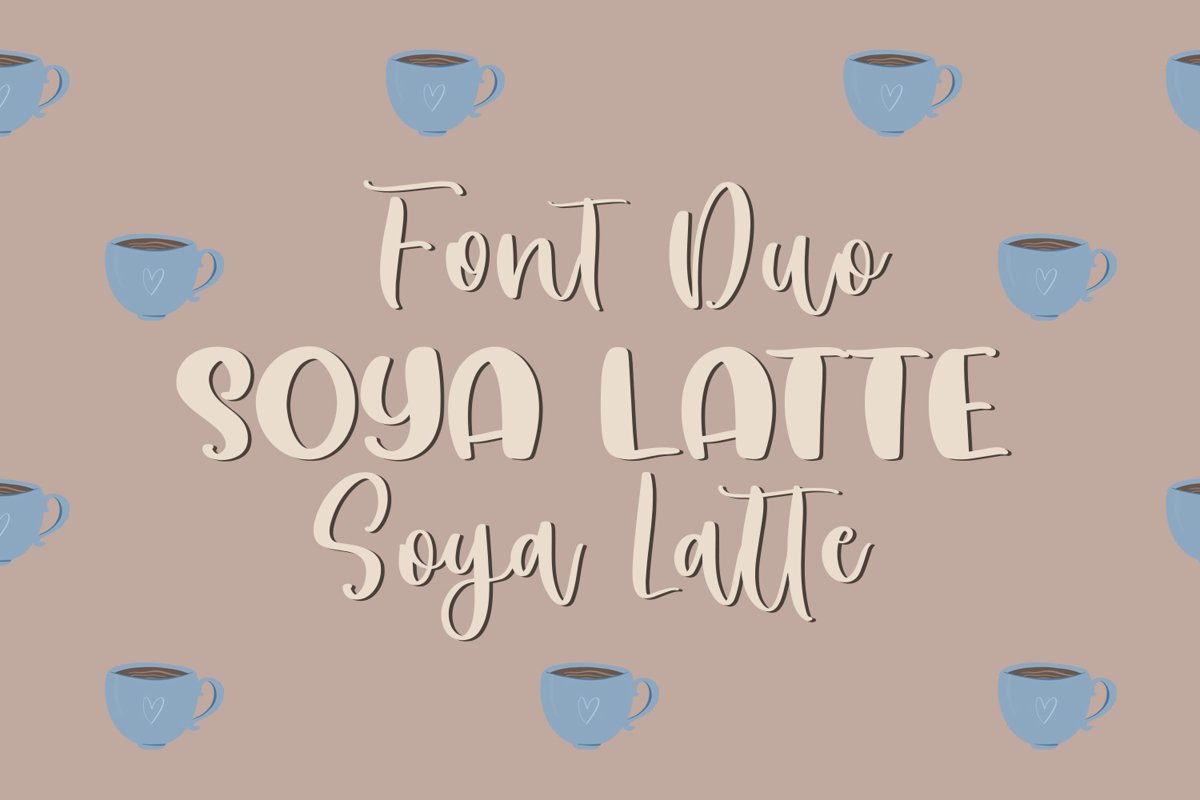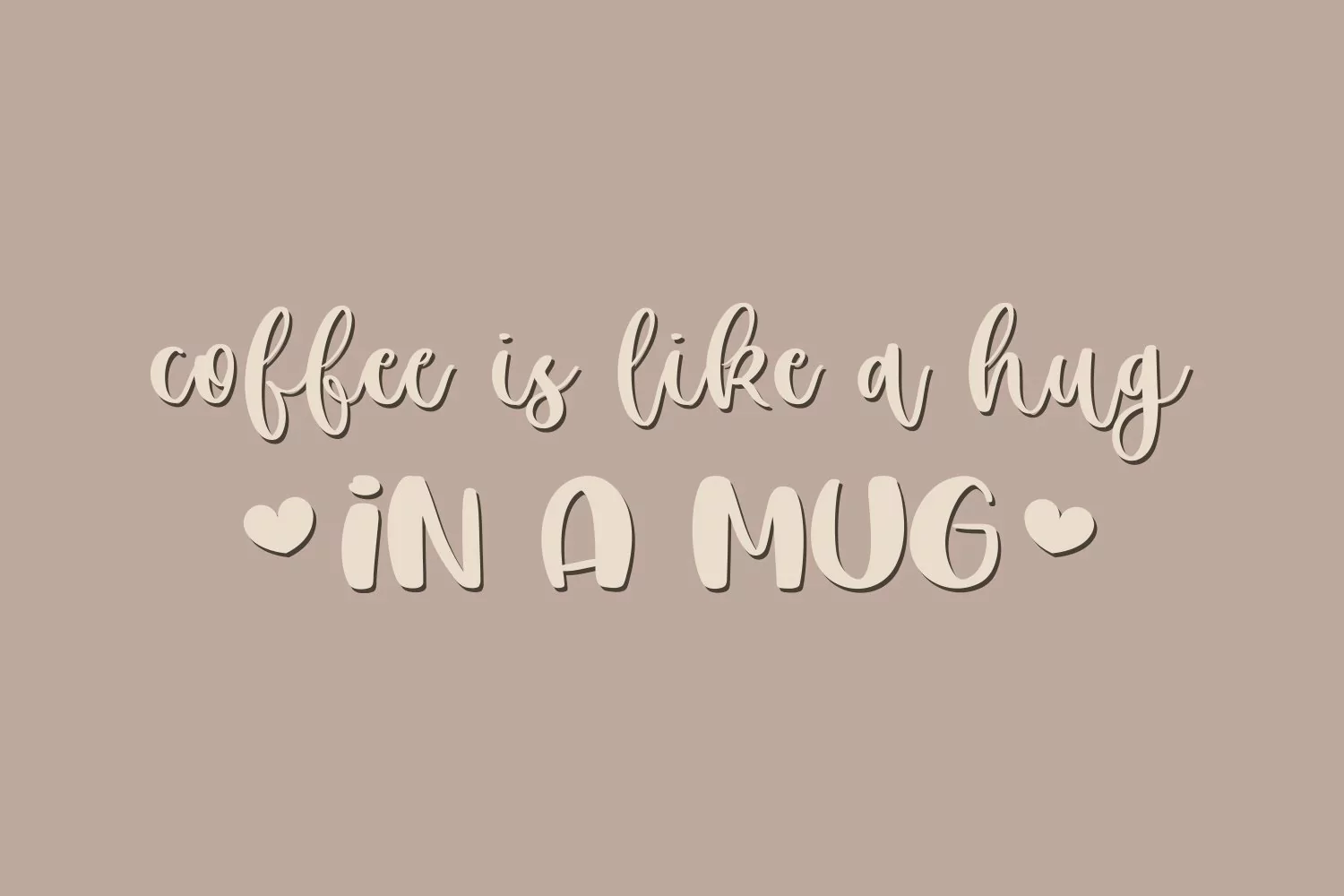
Soya Latte Font Duo - it's a cute handwritten font duo
Soya Latte.otf - all uppercase sans serif font, numbers, punctuation
Soya Latte Font Duo Script.otf - standart and alternate uppercase, lowercase, numbers, punctuation